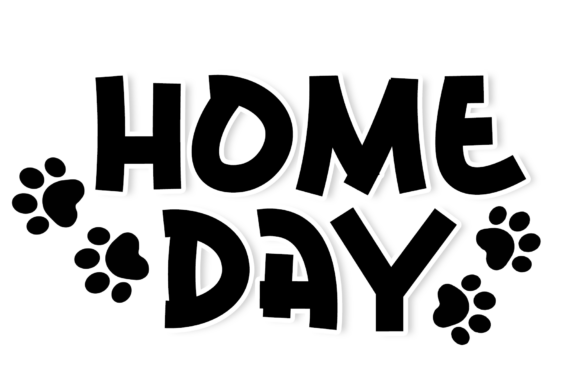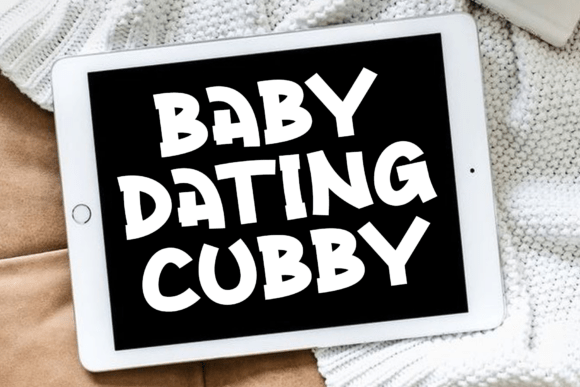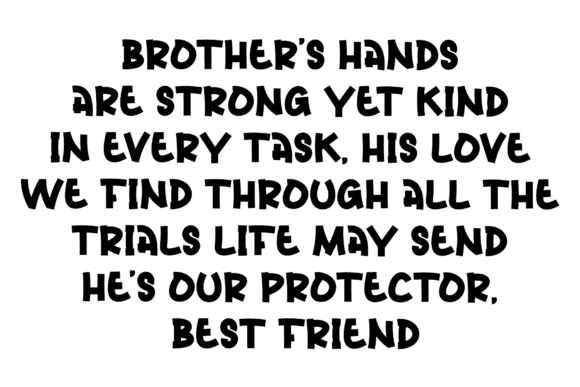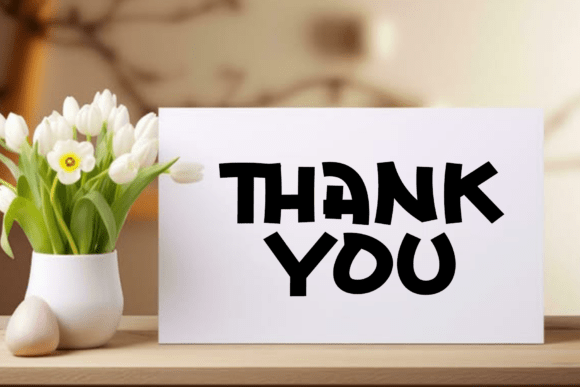
Introduction to Pet Care Font
As a designer, you know that finding the perfect font can make or break a project. There’s nothing quite like the feeling of stumbling upon a unique and beautiful font that perfectly captures the essence of your creative vision. For me, it was a late-night browsing session on a popular design resource website that led me to the lovely Pet Care Font. Its whimsical, handwritten style immediately caught my eye, and I knew I had to learn more.
With its high-quality design and transparent background, the Pet Care Font is a versatile and valuable addition to any design project. Whether you’re working on a logo, branding, or quote, this font is sure to add a touch of elegance and sophistication. And the best part? It’s available for free download, making it an accessible design resource for creatives of all levels.
Key Features of Pet Care Font
- High-Quality Design: Pet Care Font is a unique and creative design resource that is perfect for any pet-related project.
- Transparent Background: This font features a transparent background, making it ideal for use on images or videos with complex backgrounds.
- Perfect for Pet-Related Projects: Pet Care Font is specifically designed for use in pet-related projects, making it a great resource for pet owners, pet businesses, and animal lovers.
Honest Review: Pet Care Font
I recently stumbled upon the Pet Care Font, and I must say it’s a lovely addition to any design resource. As a designer, I appreciate high-quality fonts that can elevate a creative project.
What works well about the Pet Care Font is its playful and cute aesthetic, making it perfect for pet-related designs or any project that requires a lighthearted touch. The font is available for free download, which is a huge plus in my book.
- ✨ Cute and playful design
One limitation I noticed is that the font doesn’t come with a transparent background option, which might be a drawback for designers who need to use it on a non-solid background. However, this is a minor issue in my opinion.
- ⚠️ No transparent background option
Overall, I’m impressed with the Pet Care Font, and I’d definitely recommend it to designers who are looking for a fun and quirky font for their next project. Just be aware of the limitation with the background option.
To get the most out of the Pet Care Font, use it in combination with other design elements, such as images and icons. You can also experiment with different font sizes, colors, and styles to create a unique look.
The Pet Care Font is ideal for pet-related designs, such as:
- Pet business logos and branding
- Pet product packaging and labels
- Pet-themed social media graphics and posts